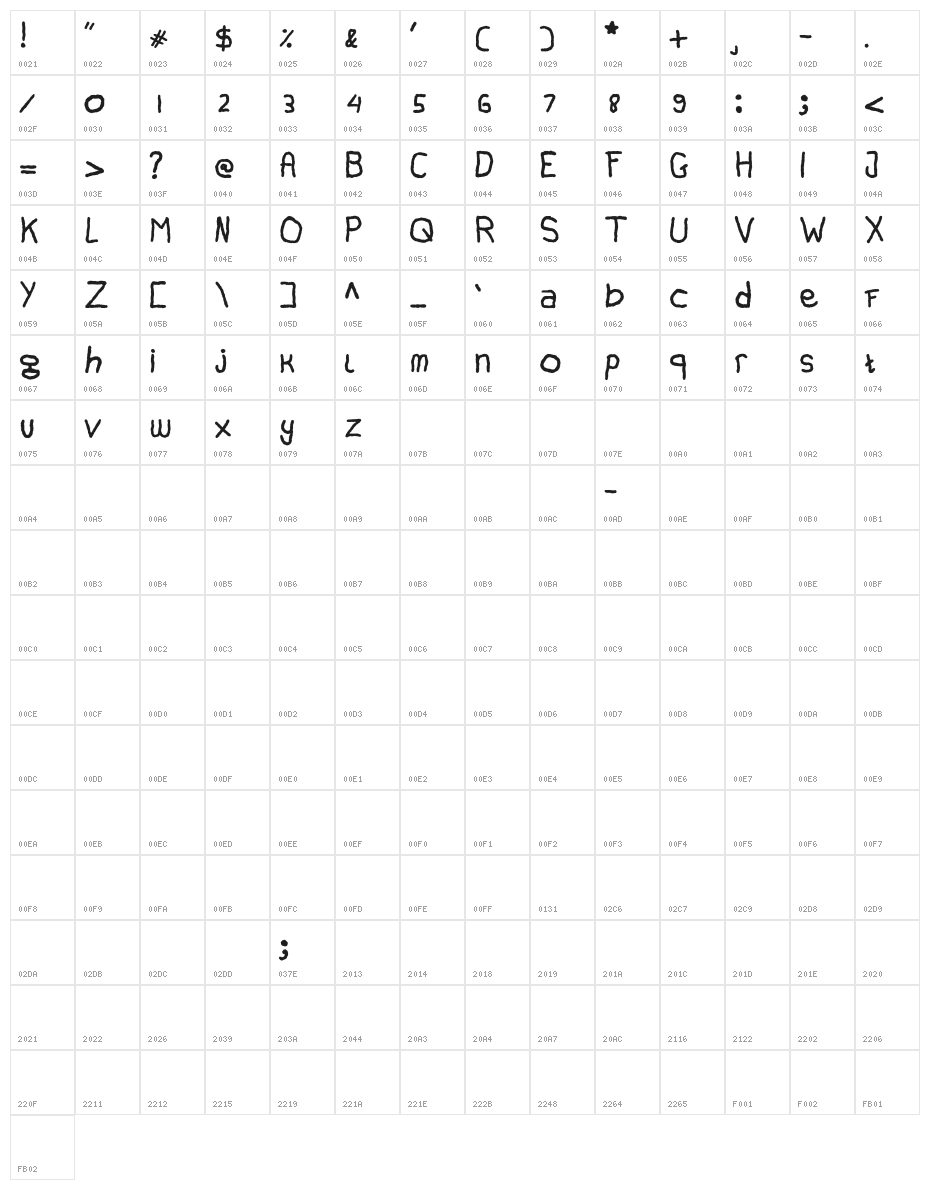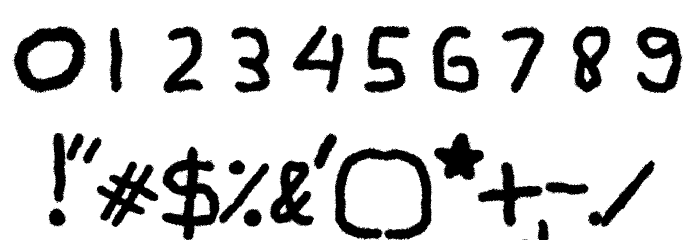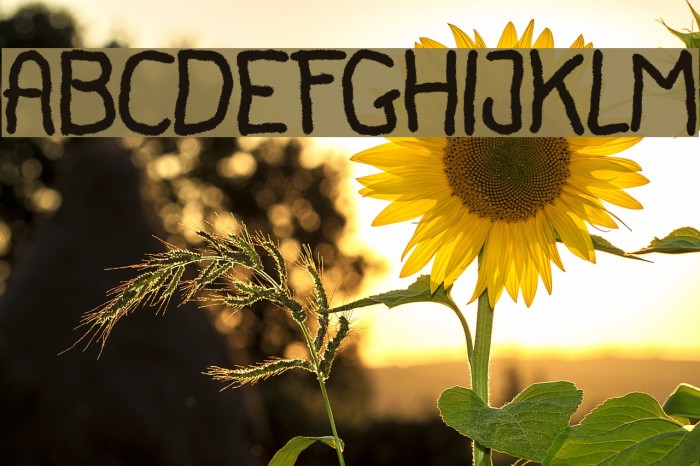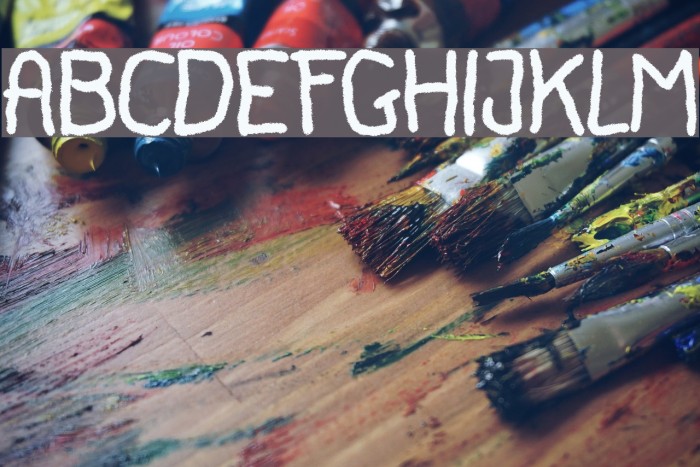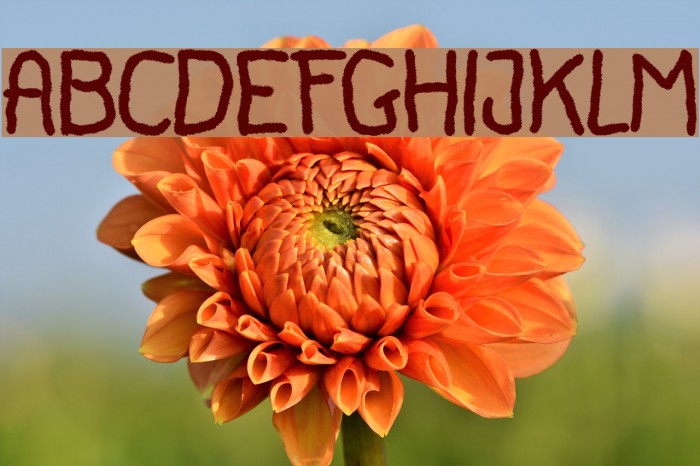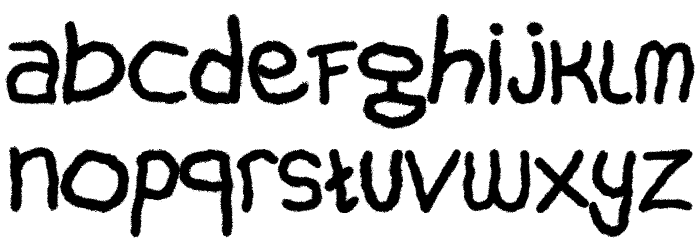
Canfuguh Font Font
Canfuguh Font Description
This font features a playful, handwritten style with a casual and organic feel. The characters are slightly irregular, giving it a personal and informal touch. The strokes are bold and rounded, which adds to its friendly appearance. The uppercase and lowercase letters maintain a consistent style, with some unique quirks in certain letters like 'g' and 't'. The numbers and special characters follow the same playful design, making it versatile for various creative projects.